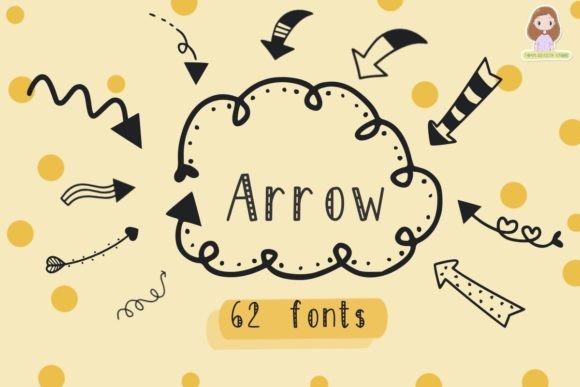
The Power of Arrow Font: Elevate Your Designs with Creative Flair
I’ll never forget the time I was working on a design project for a client who wanted a unique and playful touch. I was scrolling through font libraries, searching for that perfect something, when I stumbled upon an arrow font that caught my eye. It was love at first sight! ✨ The hand-drawn dingbats were quirky, charming, and exactly what I needed to bring my design to life. In this article, I’ll share with you the magic of arrow font and how you can use it to add a creative twist to your designs.
An Honest Review: What I Love (and What to Watch Out For)
So, what makes arrow font so special? Here are a few things I love:
- ✨ Unique and quirky: Arrow font is not your average font. Its hand-drawn dingbats add a touch of personality to any design.
- ✅ Versatile: Whether you’re working on a graphic design project, crafting a handmade card, or creating a plan, arrow font can be used in a variety of contexts.
- 🎨 Customizable: With OpenType features and glyphs, you can experiment with different styles and alternates to make the font your own.
Of course, no font is perfect, and there are a few quirks to watch out for:
- ⚠️ Legibility: Some arrow font styles can be a bit tricky to read, especially at smaller sizes. Make sure to test the font before committing to it.
- 🤔 Pairing: Arrow font can be a bit bold, so it’s essential to pair it with a complementary font to avoid visual overload.
Arrow font was inspired by the world of hand-drawn dingbats and vintage typography. Imagine a designer rummaging through old type specimen books, searching for unique and quirky characters to add to their designs. That’s how arrow font was born – from a passion for creative typography and a desire to bring a touch of whimsy to modern design.
| What is arrow font? | Arrow font is a hand-drawn dingbat font that can be used for a variety of design purposes. |